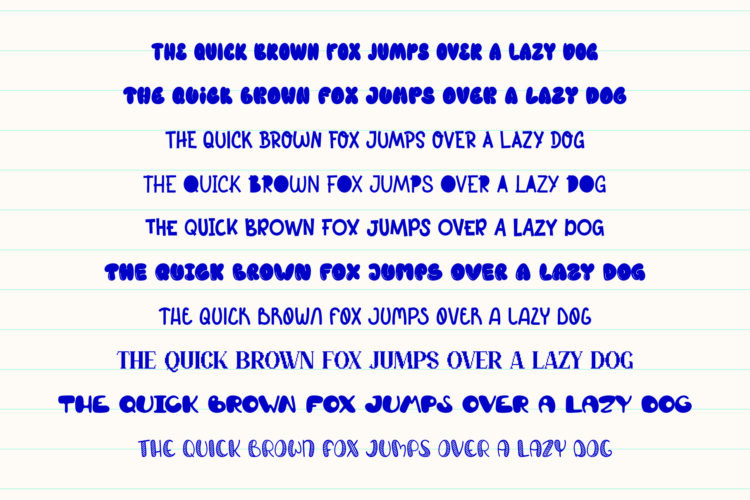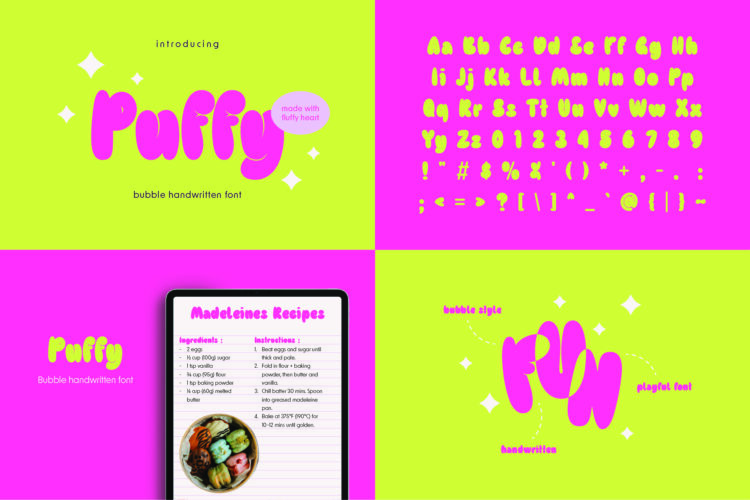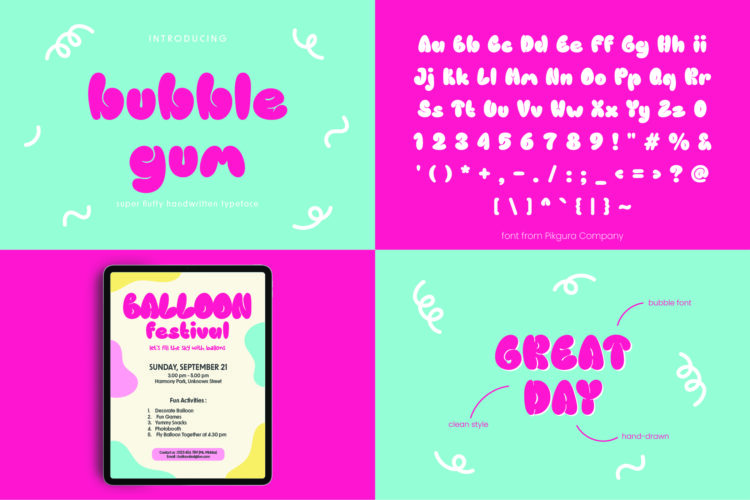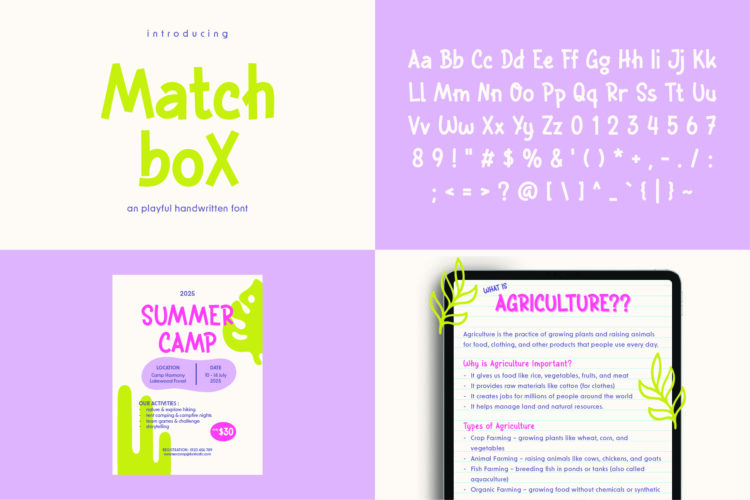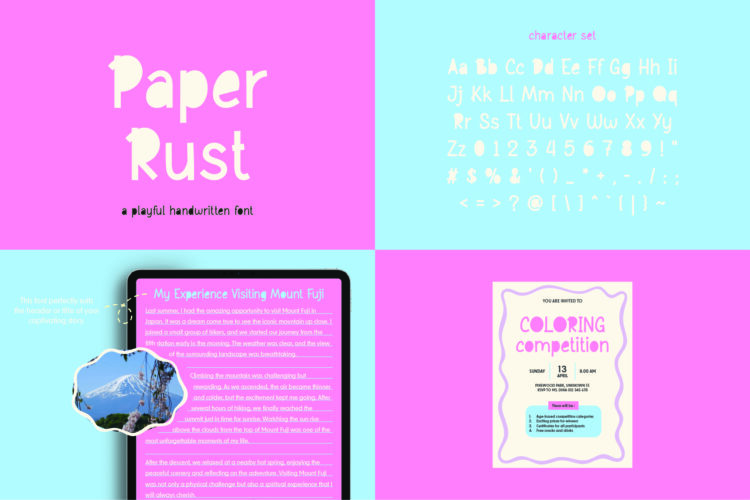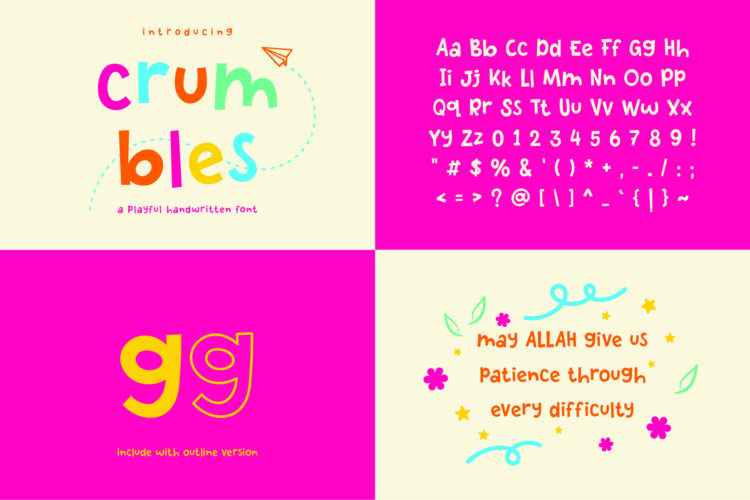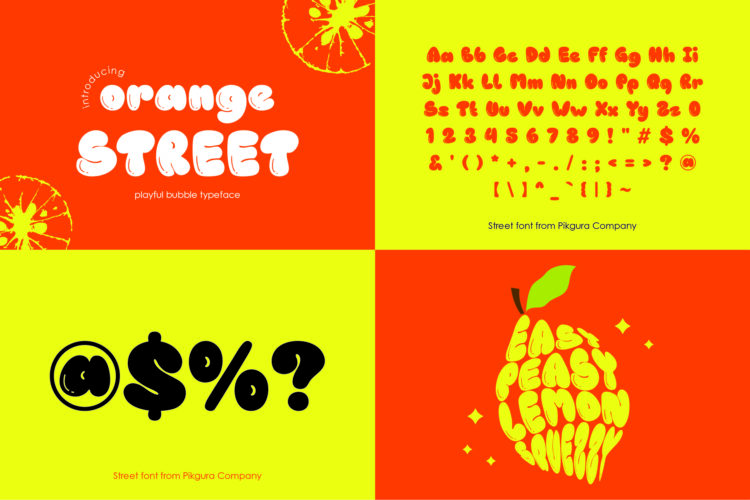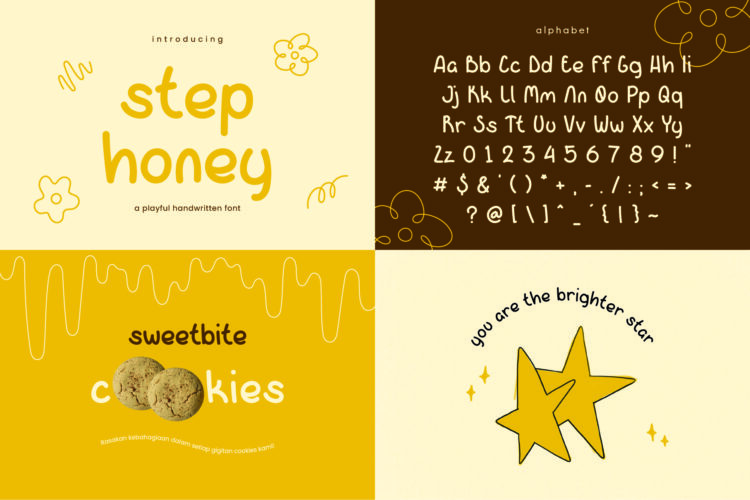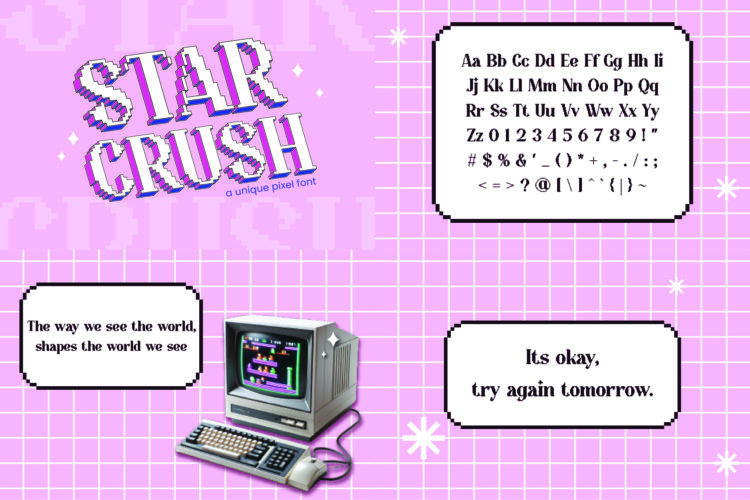
PGR Puffy
PGR Bubblegum
PGR Matchbox
Paper Rust
PGR Crumbles - Fill
PGR Crumbles Outline
PGR Orange Street
Stephoney
Star Crush
PGR Roughty
PGR Crochet
Add creativity and fun to your designs with this Hand-Drawn Doodle Font Bundle. It includes 10 unique handmade fonts, each with its own cute, playful, and scribbly style. These fonts are full of personality and designed to make your work stand out.
Use them for almost anything—magazines, posters, children’s books, logos, or digital planners. They’re also great for journaling, scrapbooking, or taking notes in a fun way. Whatever your project, this bundle adds a unique and cheerful touch.
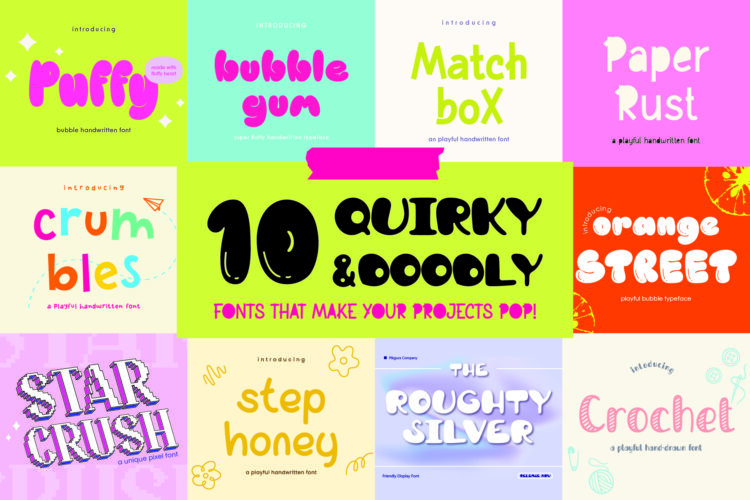
10 Doodle Font Bundle